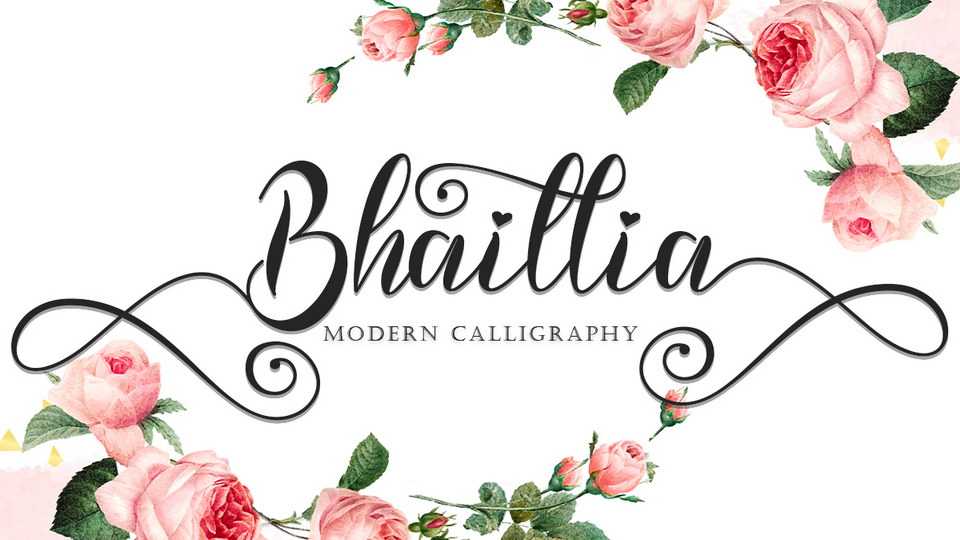
Download Bhaillia font, a handwritten script typeface that is lovingly crafted to produce outstanding work. Bhaillia is very beautiful and elegant which is suitable for all kinds of your work.